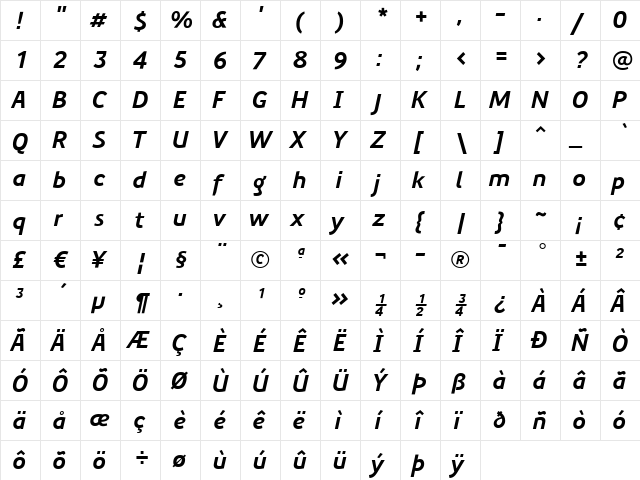
PreciousSans Bold Italic
Design Context for PreciousSans Typeface
PreciousSans takes a measured approach to typography — its balanced proportions and neutral character make it a reliable workhorse for both digital and print work. Its italic angle brings a sense of urgency and motion to the letterforms. The heavy weight commands attention and anchors typographic hierarchies.